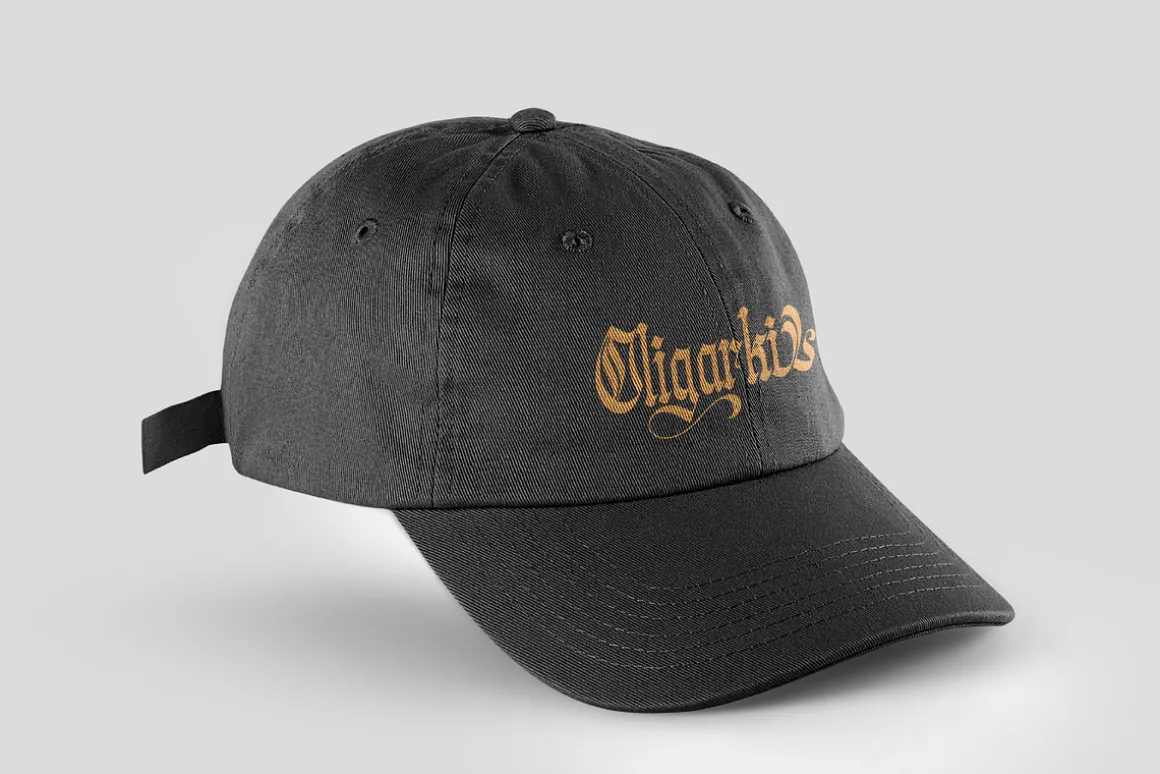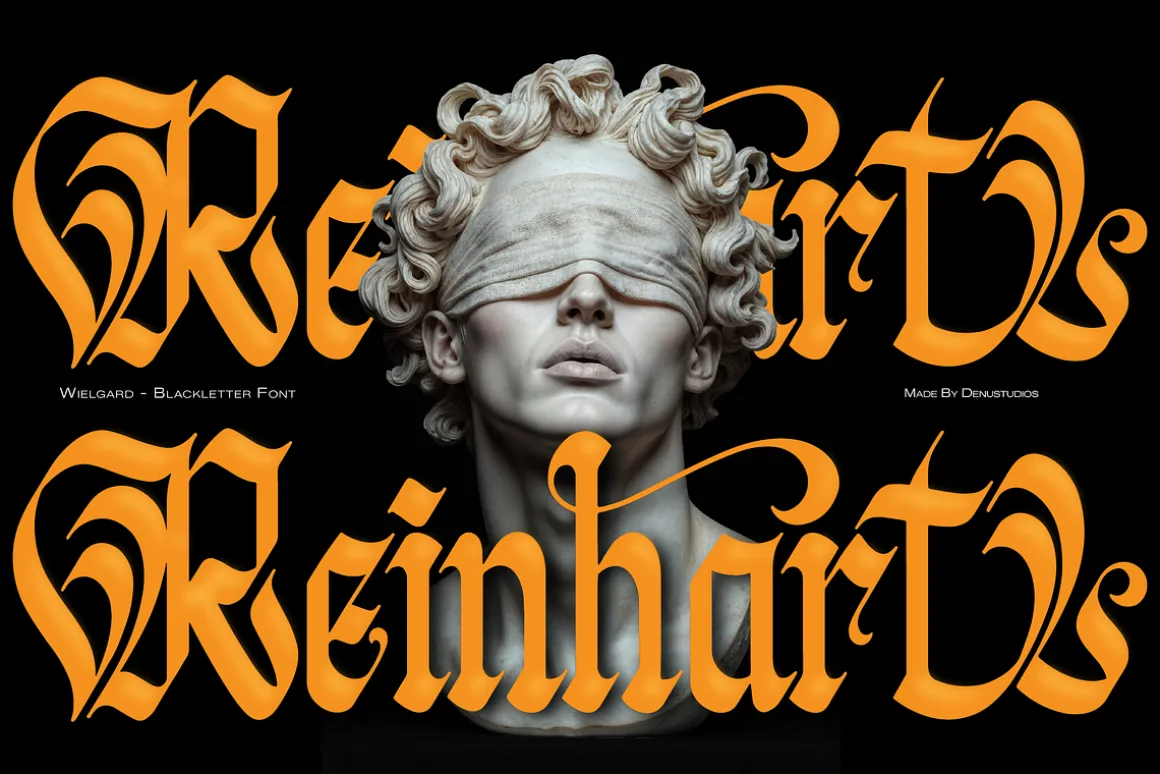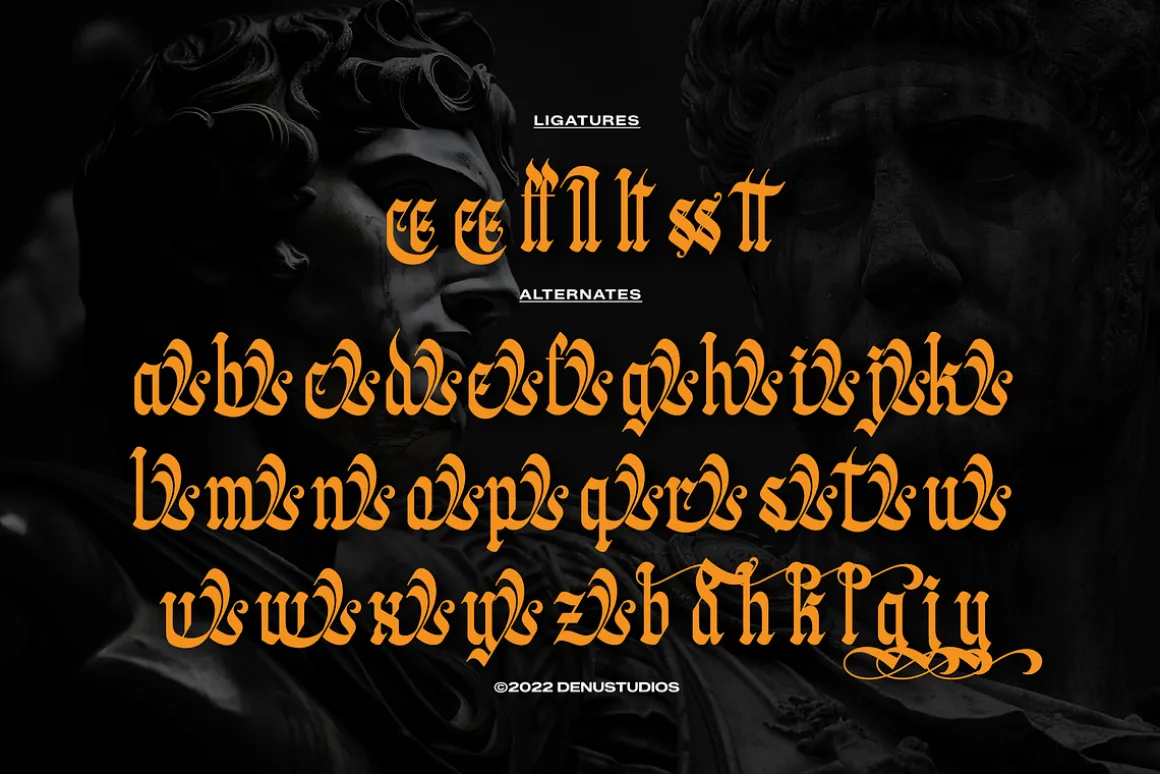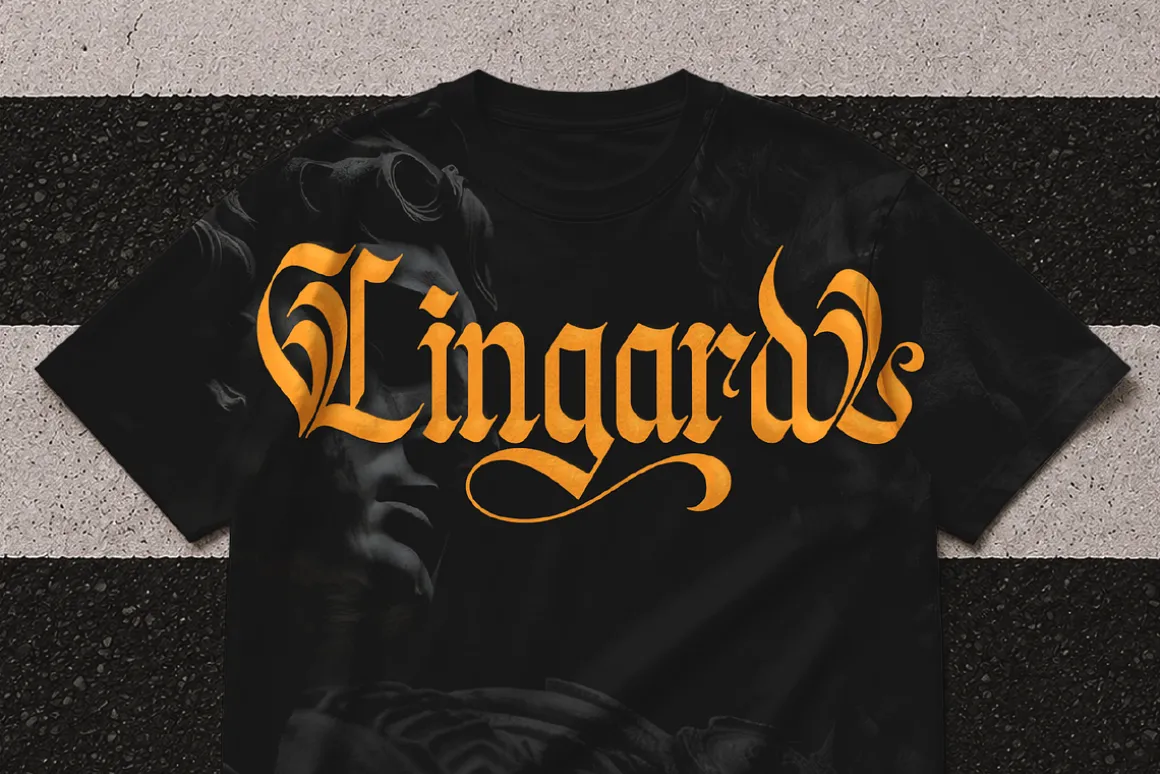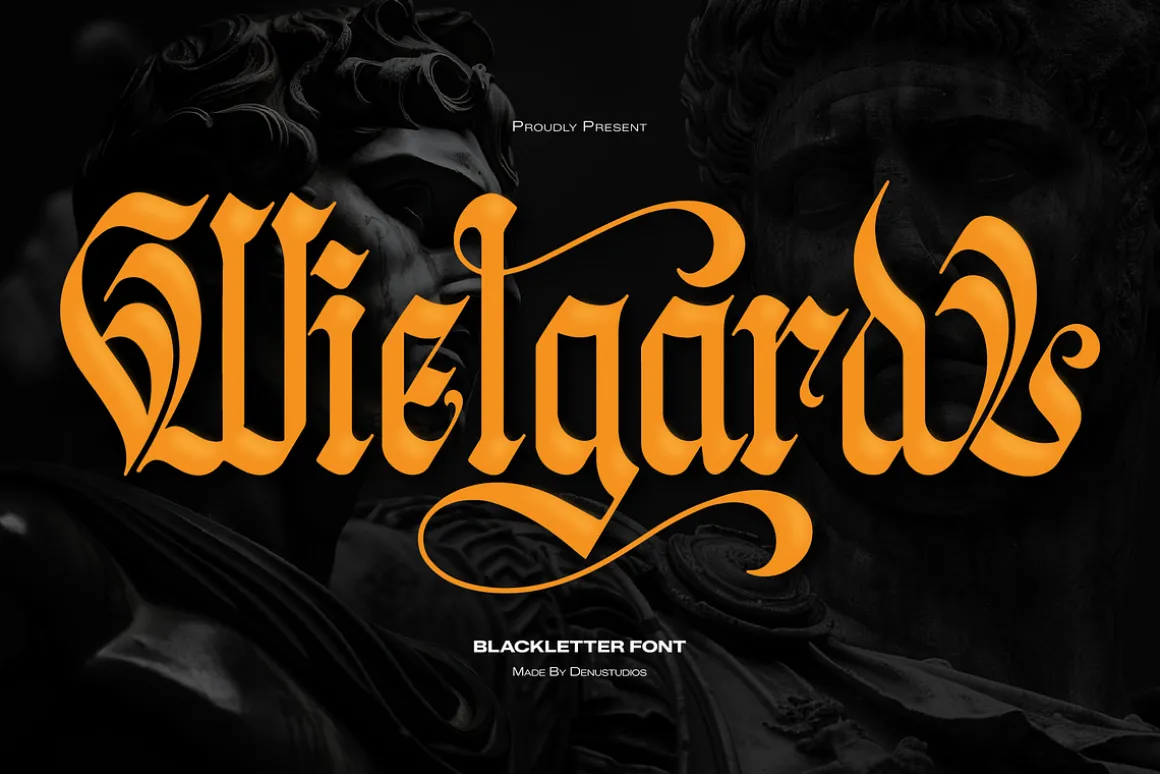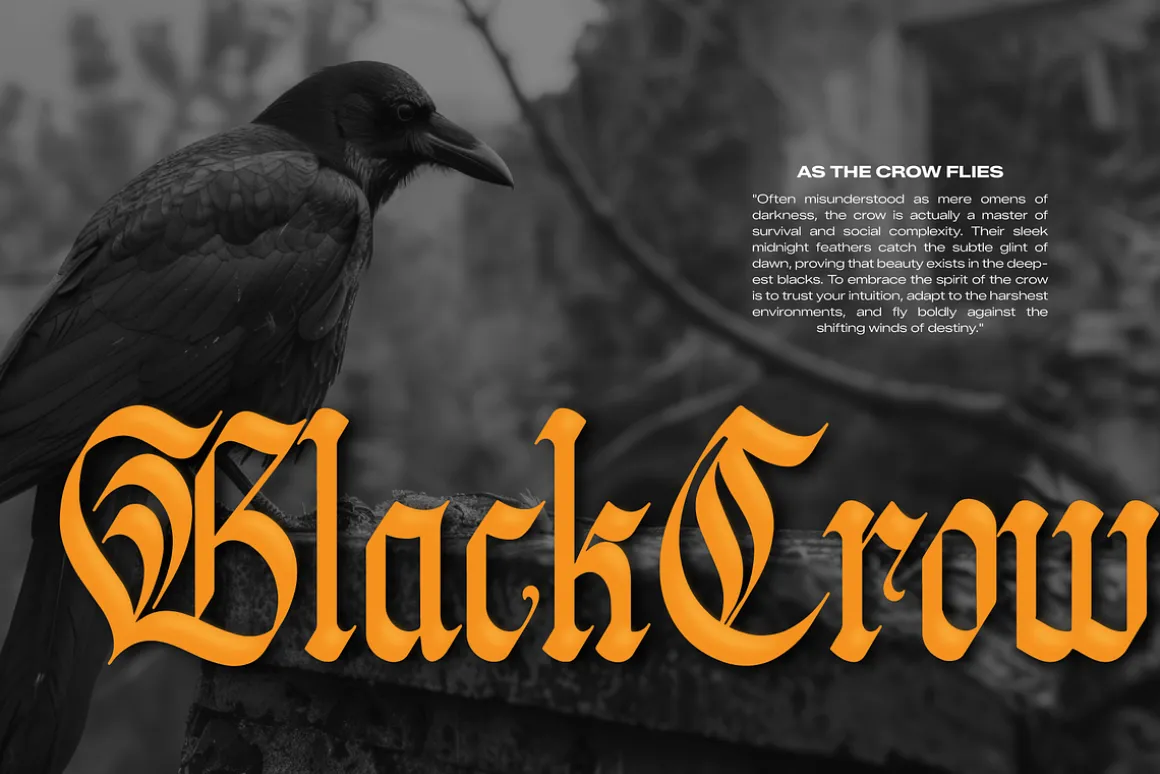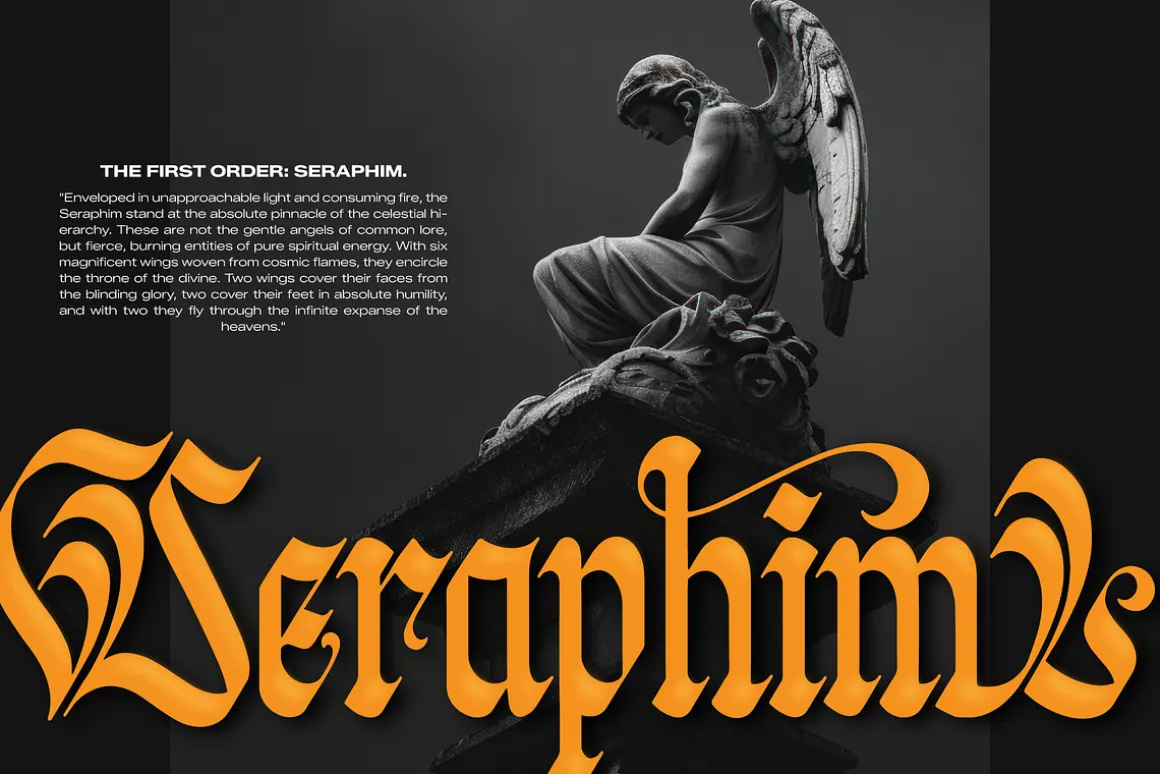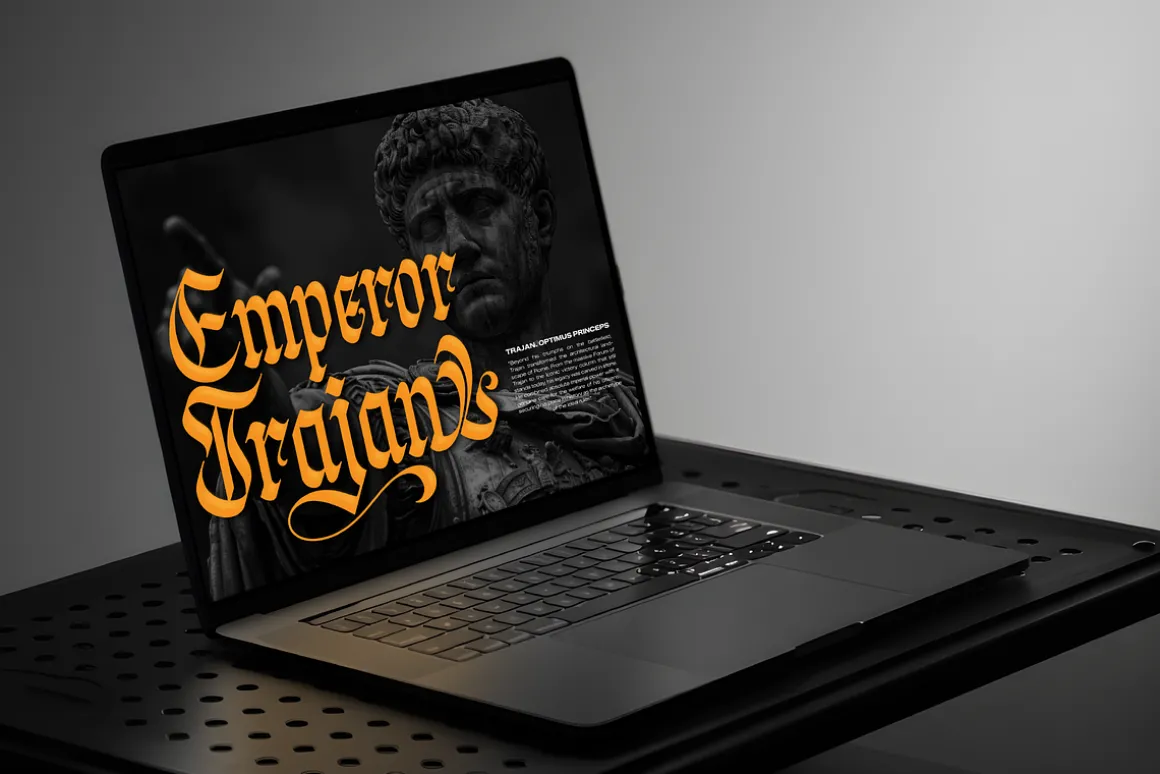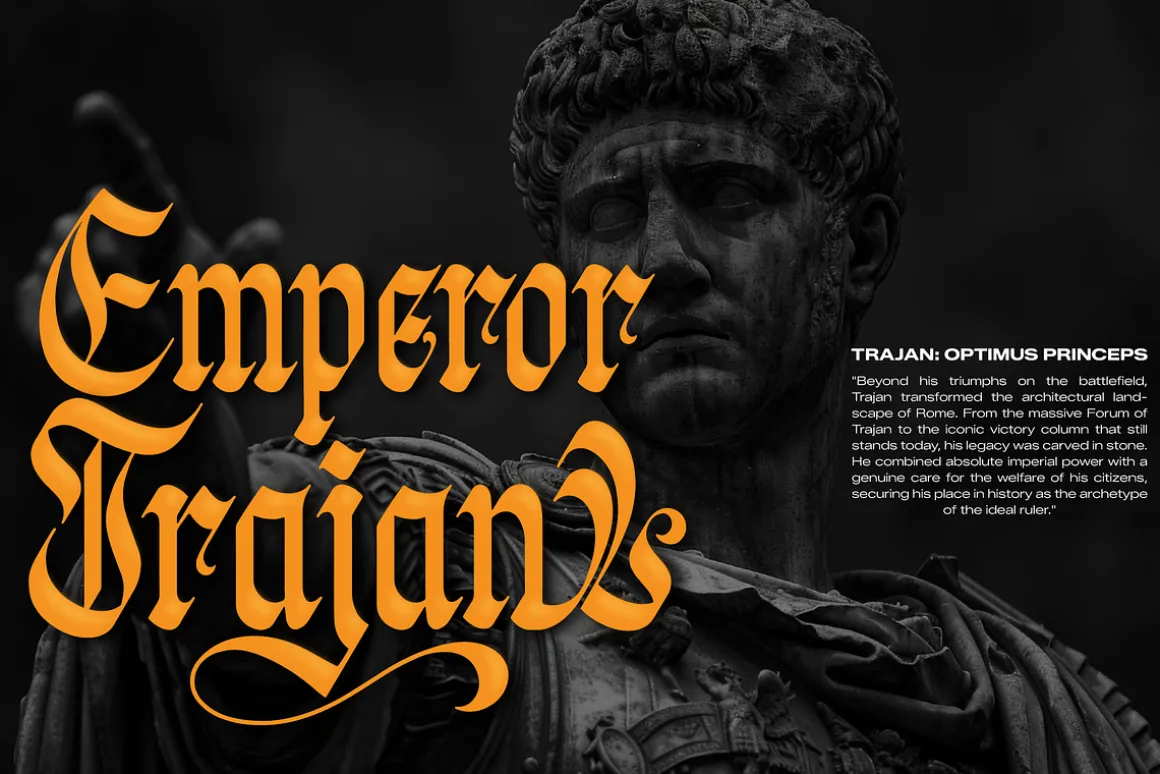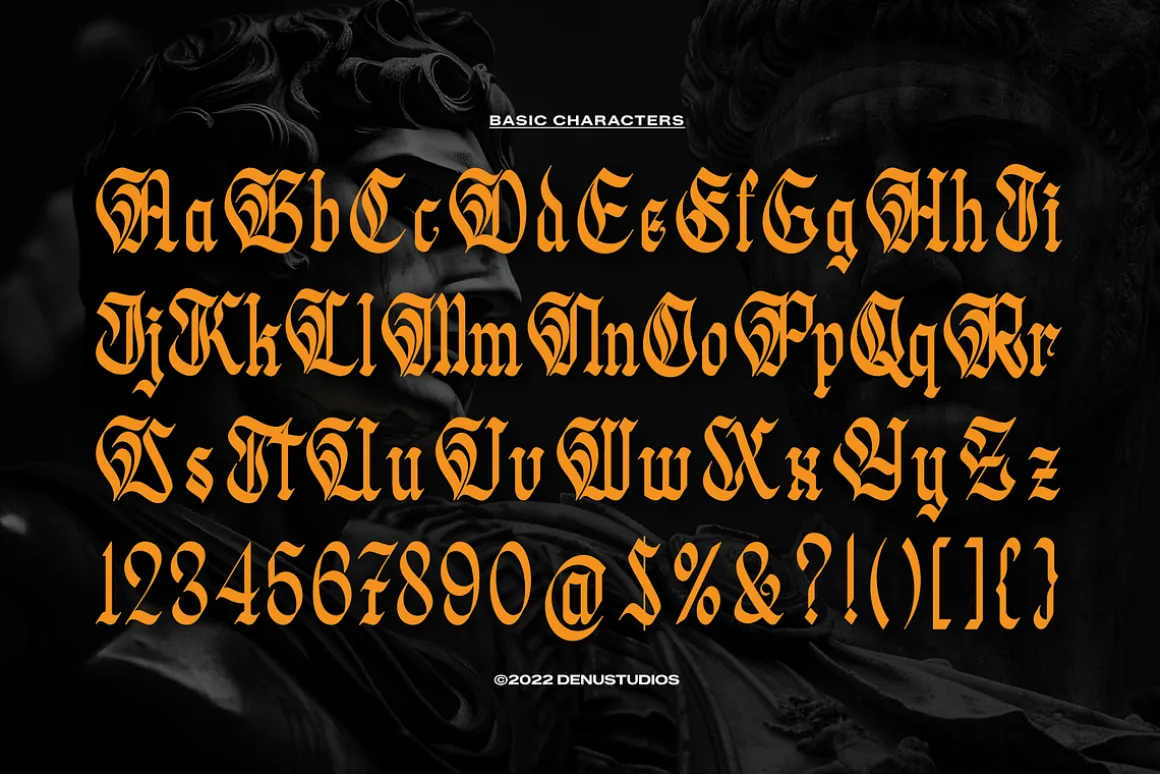
Welgard
Black Metal Font, from Denustudios, suitable for any projects such as: logos, branding projects, homeware designs, product packaging, mugs, quotes, posters, shopping bags, t-shirts, book covers, name card, invitation cards, greeting cards, label, photography, watermark, special events, and all your other lovely projects that need a Black Metal taste.